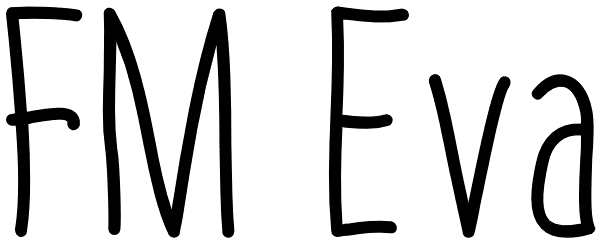
FM Eva
Eva is a pretty and legible font. Condensed and with a handwritten touch, Eva gives a warm and friendly feeling to your layout. It was totally inspired by hand-written chalkboards in coffeeshops around the world. You can use this font to create...